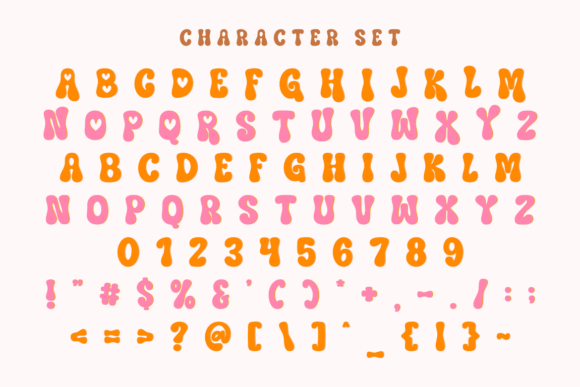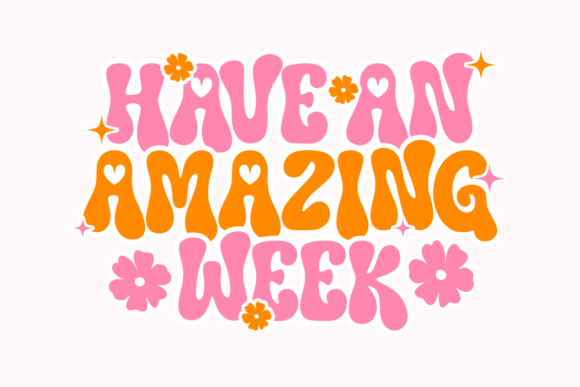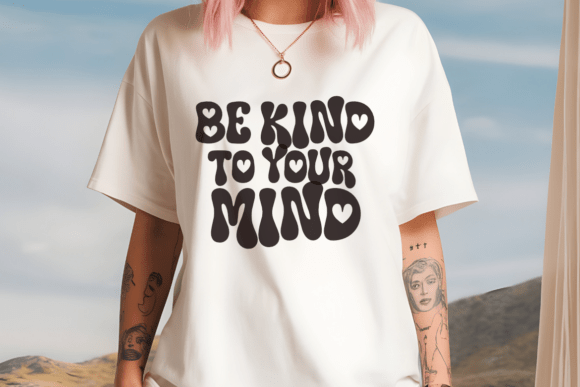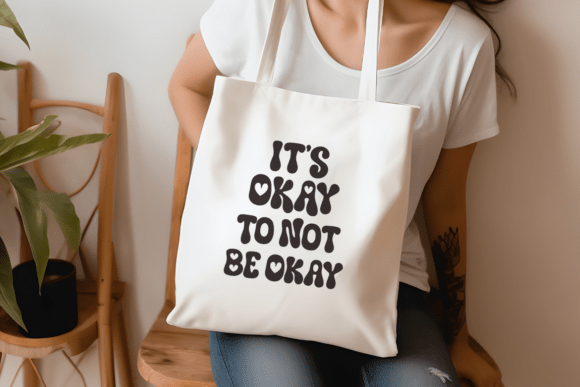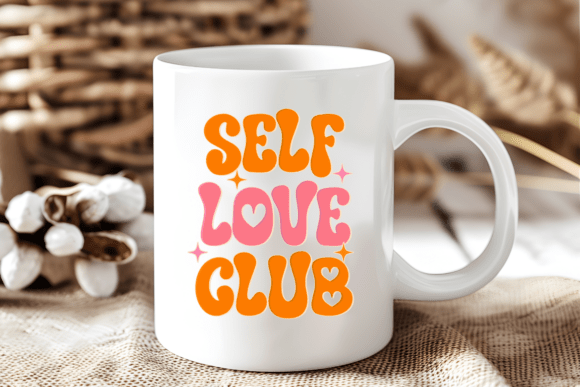
Introduction to Morning Perfect Font
Morning Perfect is a retro lovely font that brings a fun, nostalgic vibe to your creative projects.
Its thick strokes and playful curves make it perfect for adding a vintage flair to any design Ideal for crafting, sublimation, print on demand, decals, DIY, branding, and KDP interior, Morning Perfect is perfect for planner designs, logos, greeting cards, merchandise, and product promotions.
Key Features of Morning Perfect Font
Why Choose Morning Perfect Font?